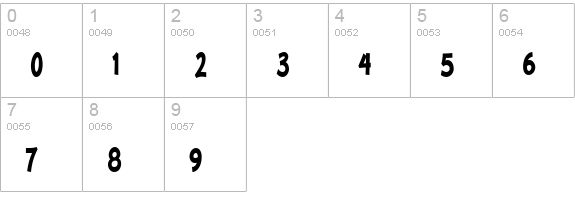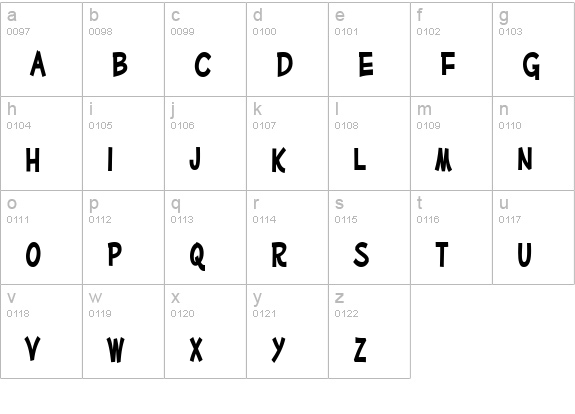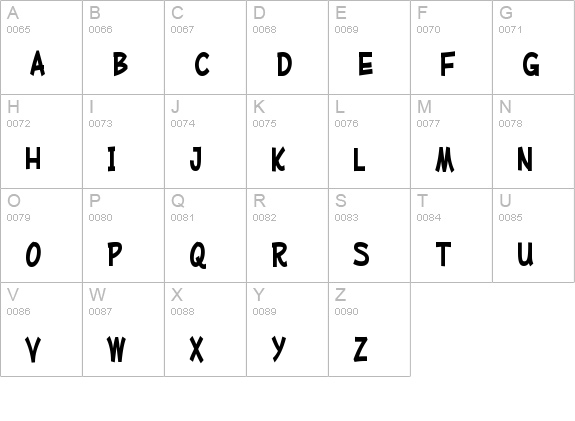
Mufferaw Cnd Bold Font Details
Mufferaw Cnd Bold is a strong, high-contrast variant in the Mufferaw typeface family \xE2\x80\x94 well suited to headlines, attention-grabbing titles, and strong calls-to-action.
Mufferaw Cnd Bold font exudes a bold and commanding presence with its strong, thick lines and distinctive letterforms. This versatile font is perfect for making a statement in headlines, logos, posters, and other design projects that require a touch of rugged sophistication. The bold weight of Mufferaw Cnd Bold ensures that your message will stand out and grab attention. And the best part? Mufferaw Cnd Bold is completely free to download at FontsMarket.com! This means you can enhance your designs with this striking font without breaking the bank. Don't miss out on the opportunity to add Mufferaw Cnd Bold to your font collection today and take your designs to the next level.